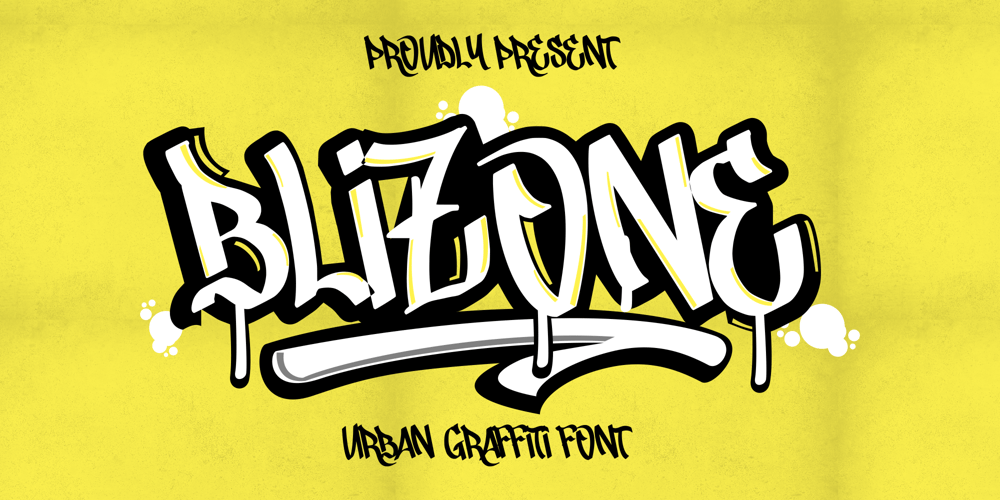
Blizone Font Family was designed by Muhammad Mujibulloh and published by MJB Letters. Blizone contains 1 styles and family package options. Blizone is a dynamic graffiti-style font that captures the essence of modern urban culture. Its bold, expressive strokes and street-inspired design make it the perfect choice for logos, branding, posters, and more. Blizone stands out with its raw energy and creative flair, adding a distinctive, edgy vibe to any project. Equipped with ligature features, underline swashes, and multilingual support, this versatile font allows for endless customization and artistic expression. Bring your designs to life with the rebellious and contemporary spirit of Blizone.